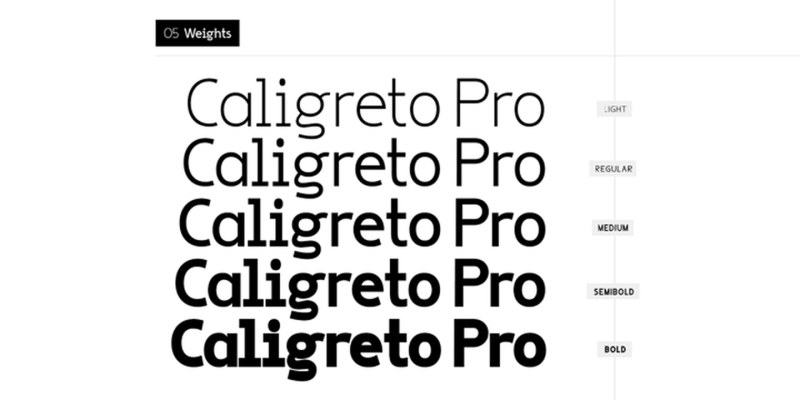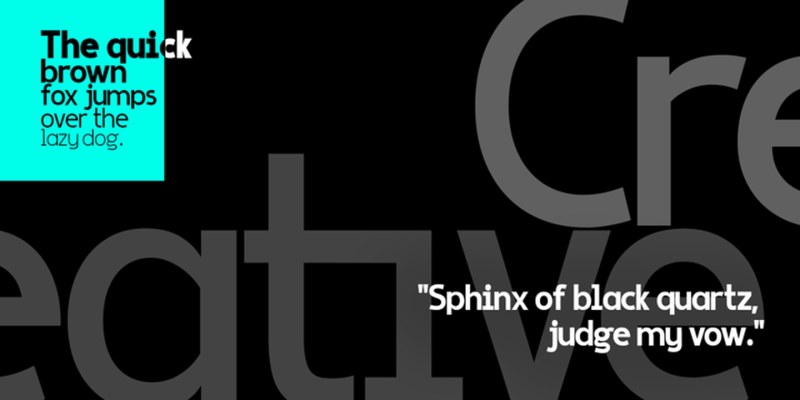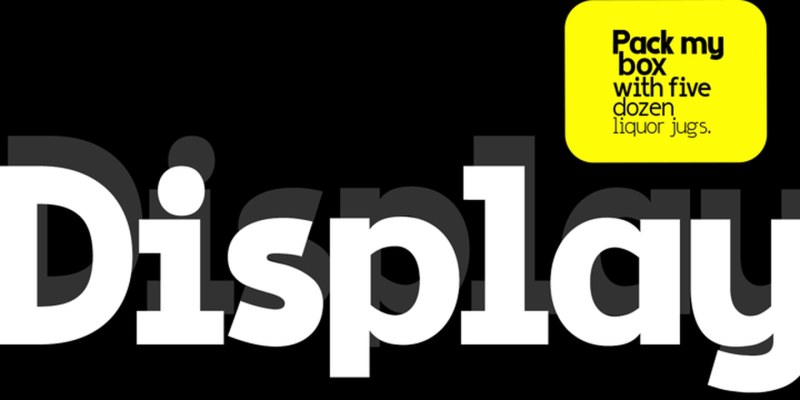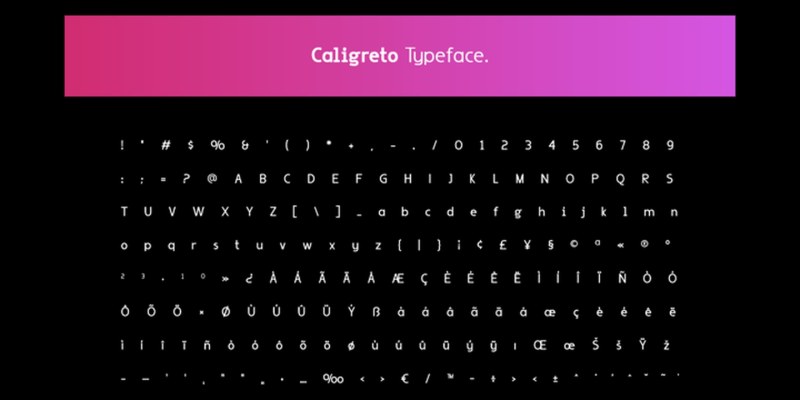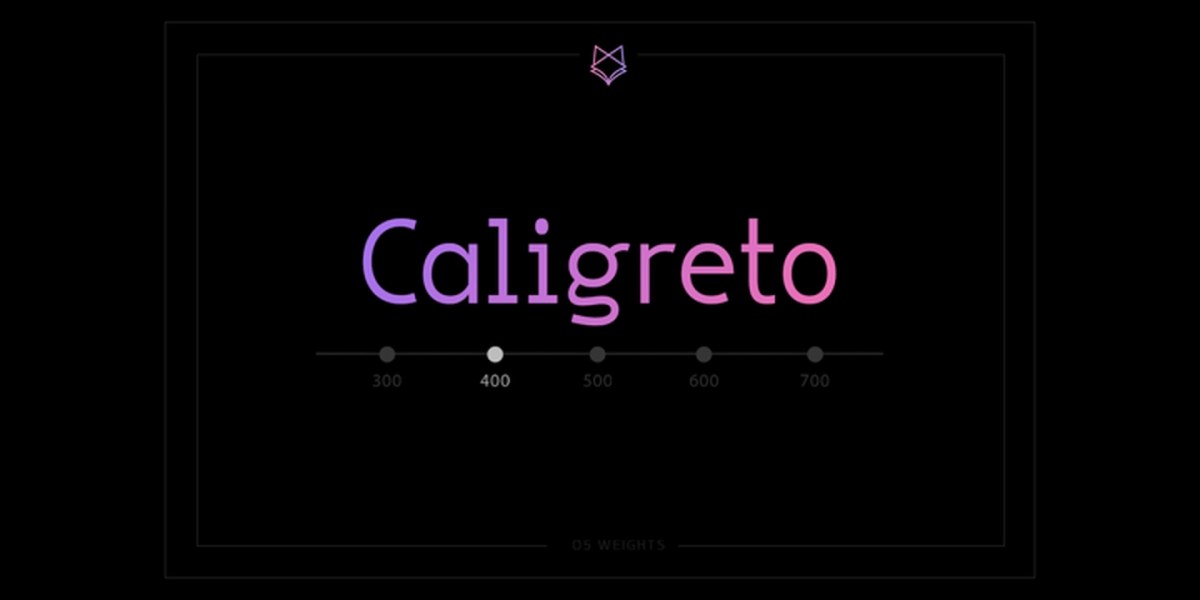
Caligreto Font Family
Introducing Caligreto Display new generation Typeface with 5 Weights. Caligreto Typeface created with the vision of to attract the audience to your brand . The finest details of this typeface are methodically and mathematically created. Caligreto is created with all the tasks of a corporate font and also for the usage in a variety of projects, including branding, logos, titles, headlines, servers, posters, screens, display, digital ads, and everything else. We are putting a lot of effort on this font as a long-term project. The Typeface includes Five Weights. Light, Regular, Medium, SemiBold and Bold.
Where Caligreto Font Family works best
Caligreto Font Family stays legible at small sizes, which makes it a strong choice for navigation, buttons and dashboards in web design and app interfaces.
Clean sans serifs like Caligreto Font Family are the default language of SaaS, fintech and product branding.
What is Caligreto Font Family good for?
Caligreto Font Family is a Sans Serif Fonts typeface tagged Bold, Branding, Corporate, Display. It works well for headlines, logos, posters, social media graphics and branding projects that need a distinctive sans serif fonts look.